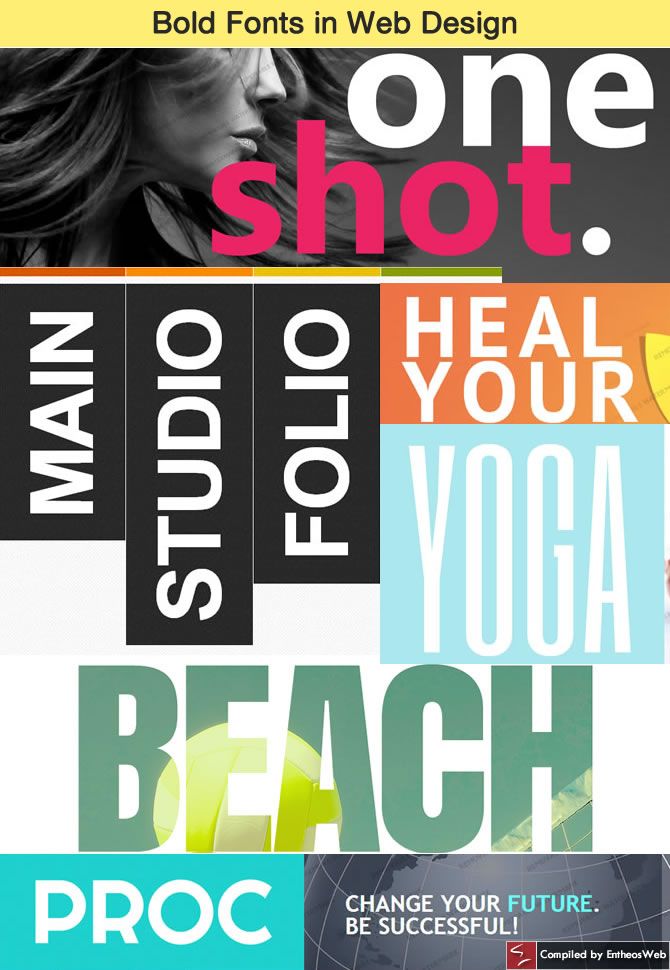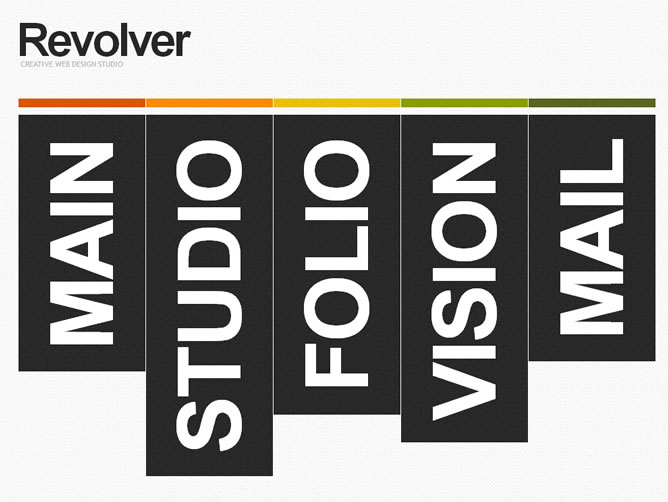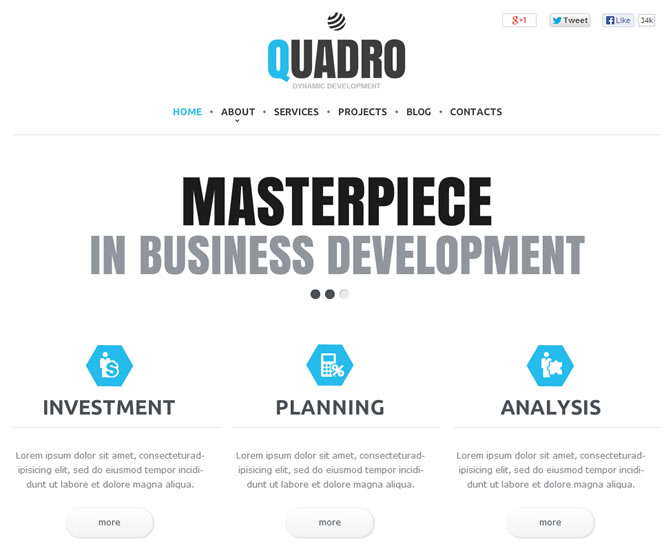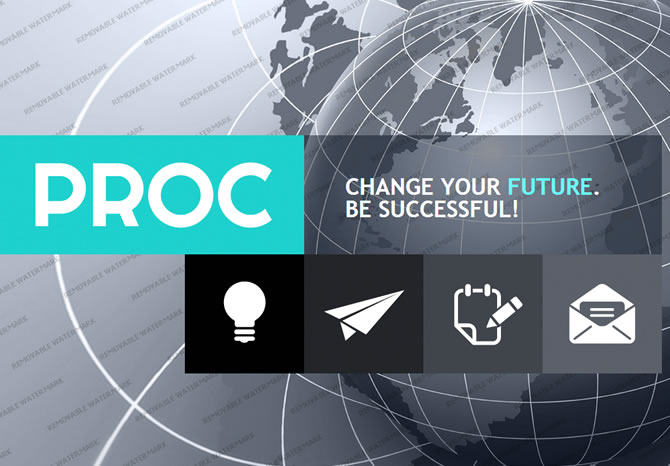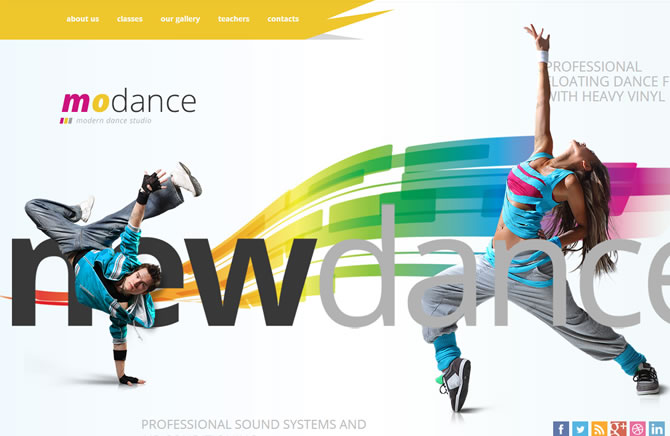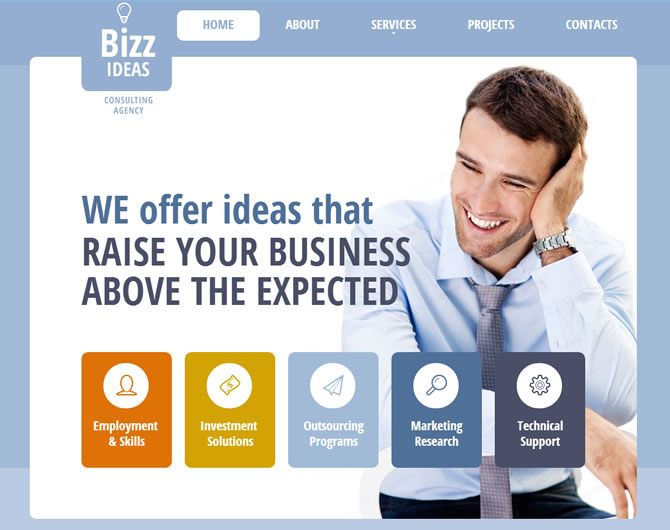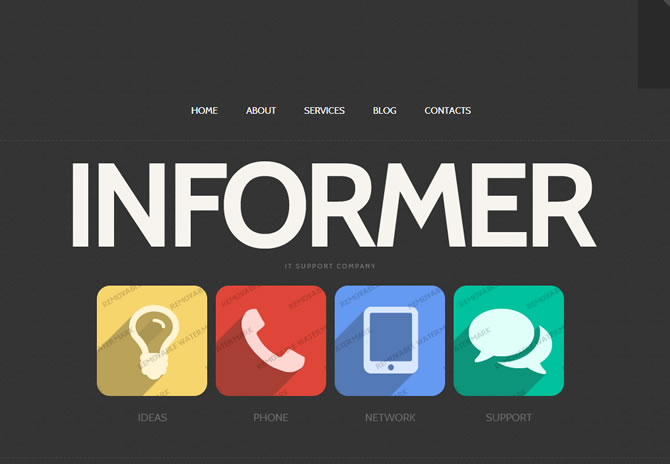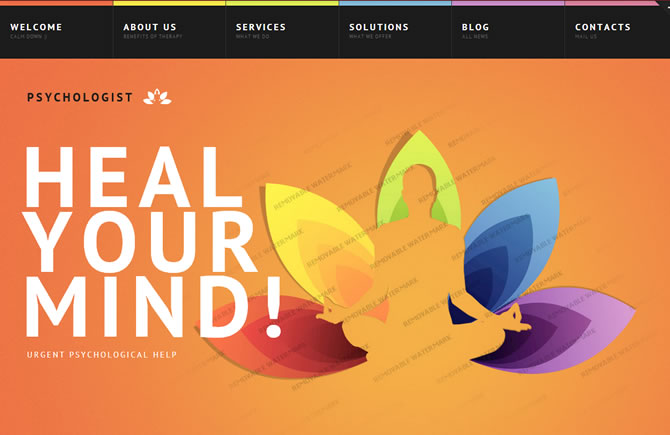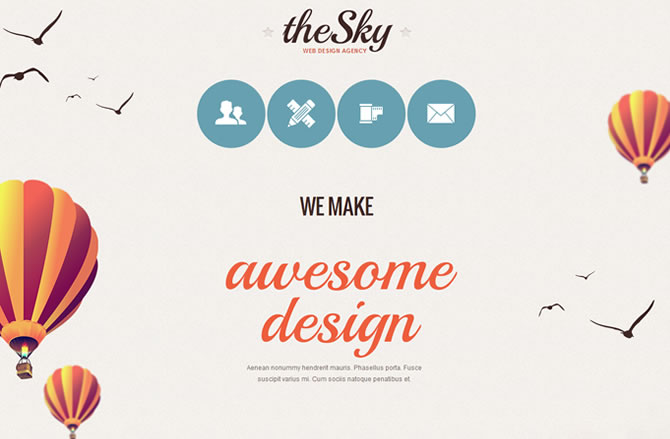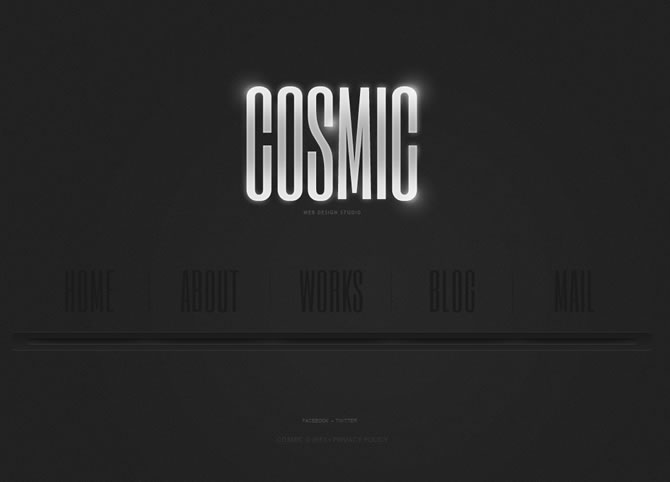
Bold fonts in web design   simple clear and attention getting bold fonts in web design
Bold fonts with full-screen background images, or superimposed on patterns and textures, used in sliders or on menus and text boxes, present the site visitor or even the casual website skimmer with a message that’s impossible to miss. With all the clutter and chatter on the web these days, it’s become more of a challenge to catch and keep your viewer’s attention.
When using bold fonts, you need to make your message simple and clear – something that makes him stop in his tracks and spend a little longer on the page, or sticks in his head like an effective billboard he whizzes by on his way to work.
Is it distracting? Your objective is to make the visitor read your message.  Too many fonts in your headline can confuse your reader abandon the effort to read your text.  On the other hand, a little variation in fonts and color can add zing, interest and creativity to your layout.  It all depends on the content of your site, and your target audience.  Shown below are examples of sans serif, serif and italic fonts in web design, in sizes ranging from large to outsize – drawing attention while adding clarity and simplicity to your message.
Red, yellow and turquoise bring a youthful and vibrant appeal to this Responsive JS Animated Architecture website template, signalling action, energy, creativity, inspiration and positive thought. These colors are used effectively in the red header, buttons and image hovers, blue slider banner and yellow drop-down menu, with a balancing beige background and black text.
This template is suitable for a technology products or services company. The template uses small icons in the menu and large graphics in the header. The design presents an organized and professional look. Large white fonts attract the viewer’s attention to content and invites him or her to click the Join Us button – which leads to the Blog with social sharing icons and comment forms.
This is a WordPress Theme with Bootstrap, suitable for an advertising agency, media company, or design studio. Note the use of white space to present text, with large red fonts for headlines and smaller black fonts for subheads, interspersed with content on a grey background. The Click Here button leads into the blog which engages the visitor with informative content, comment forms and social sharing icons.
Blue circles with graphics turn orange on rollover to form the menu in this Web Design Moto CMS HTML website template with a full-screen image on a textured background and large fonts in orange to catch the eye. The design carries the theme of ballooning among flying birds to imply energy, adventure and creativity.
Template 45818 – Unique Design Responsive Joomla Template
Bold white fonts on deep pink convey the company’s message front and center in the homepage slider with changing flat colors, in this Responsive Joomla Template on a textured grey background.
Mustard on black makes a striking combination with bold grey text overlaid on full-screen background images of rock-climbing in the homepage slider. Large fonts continue in the photo captions and numbering.